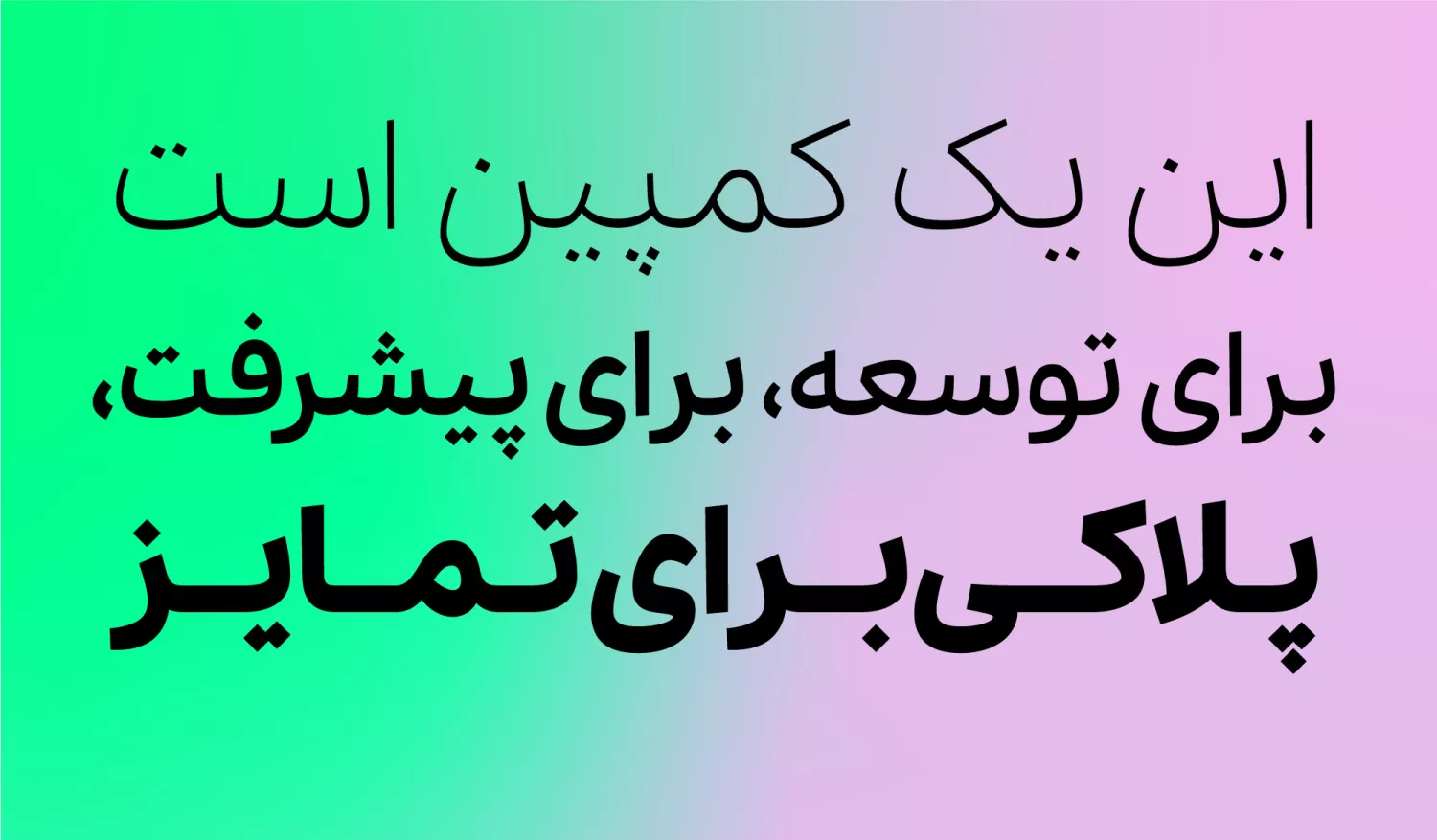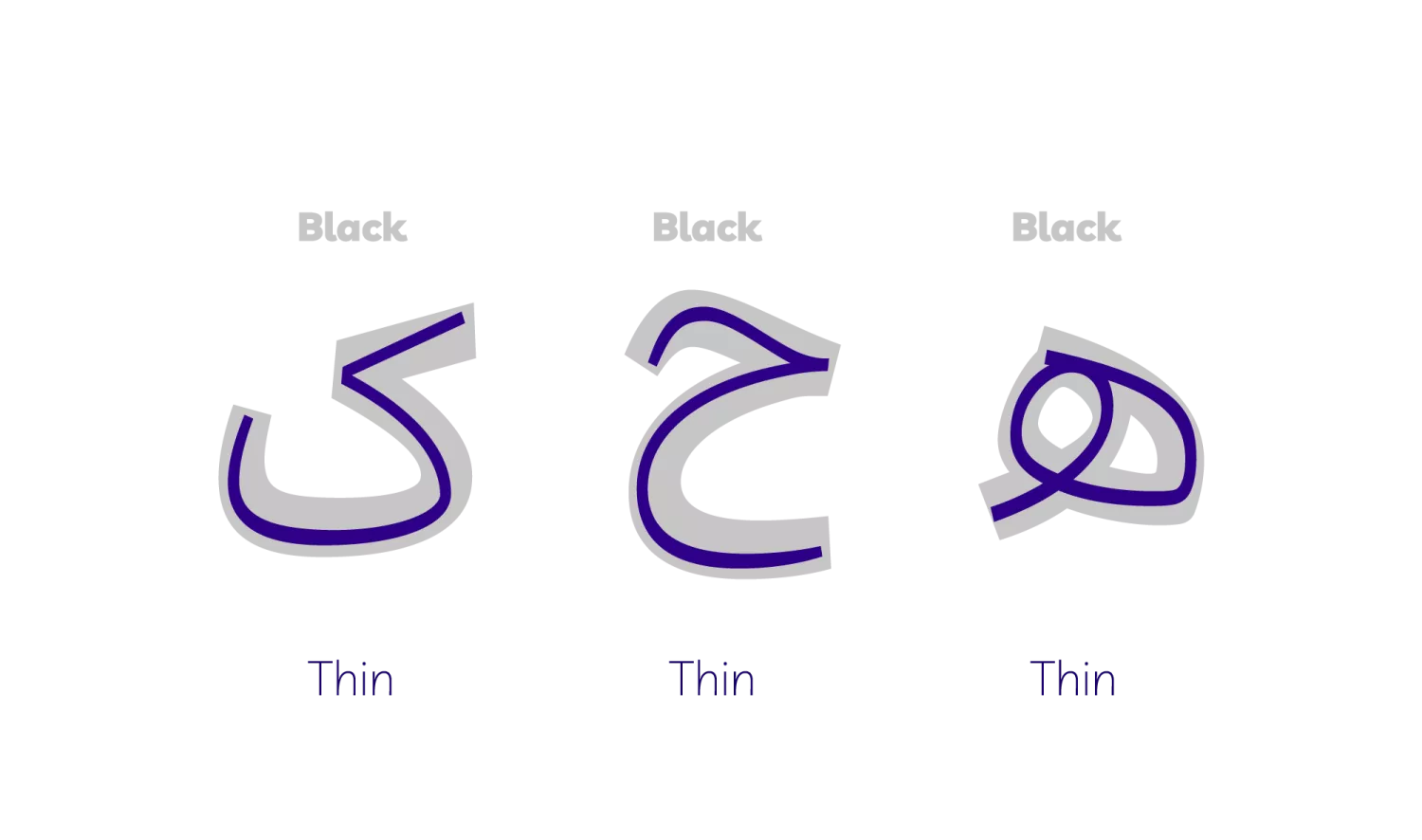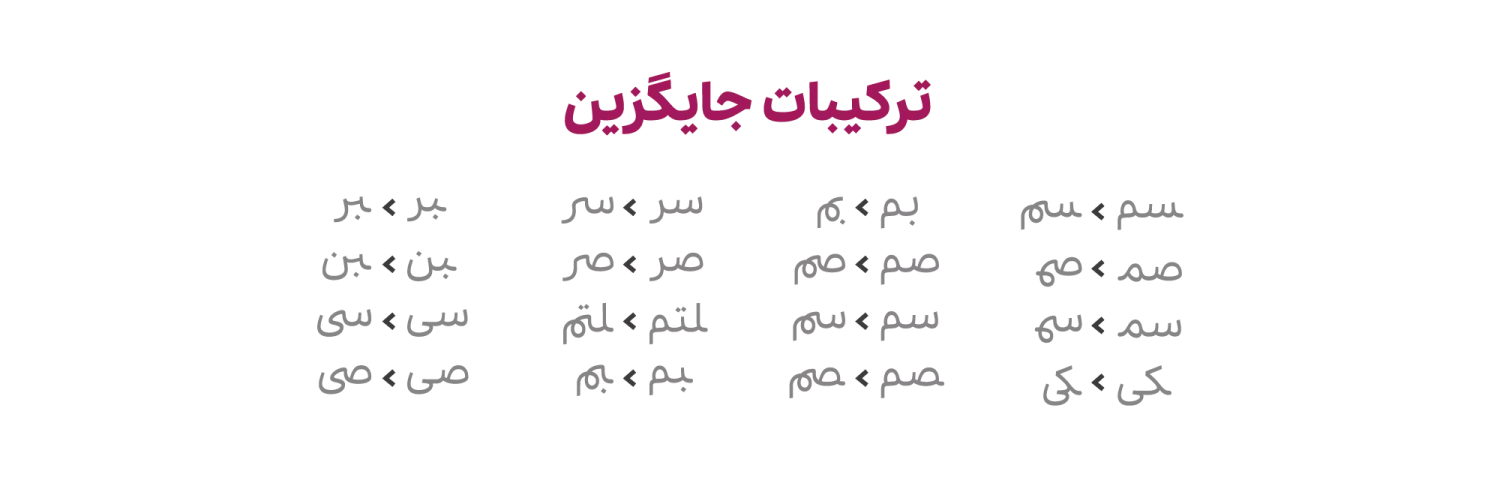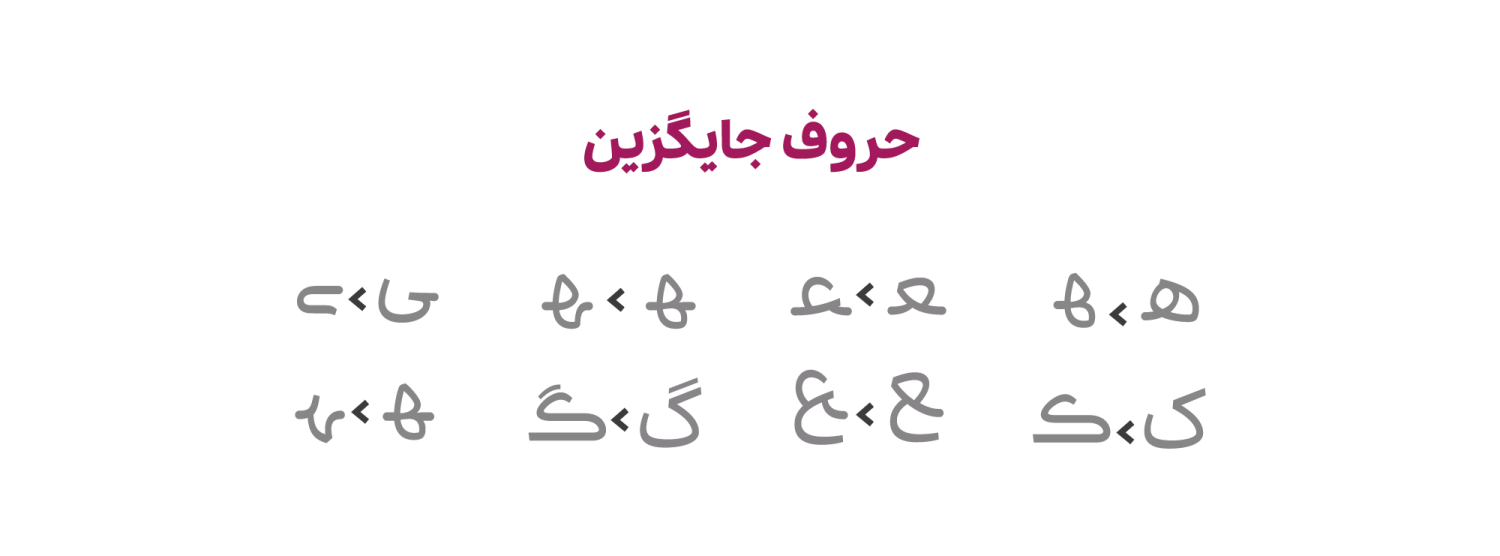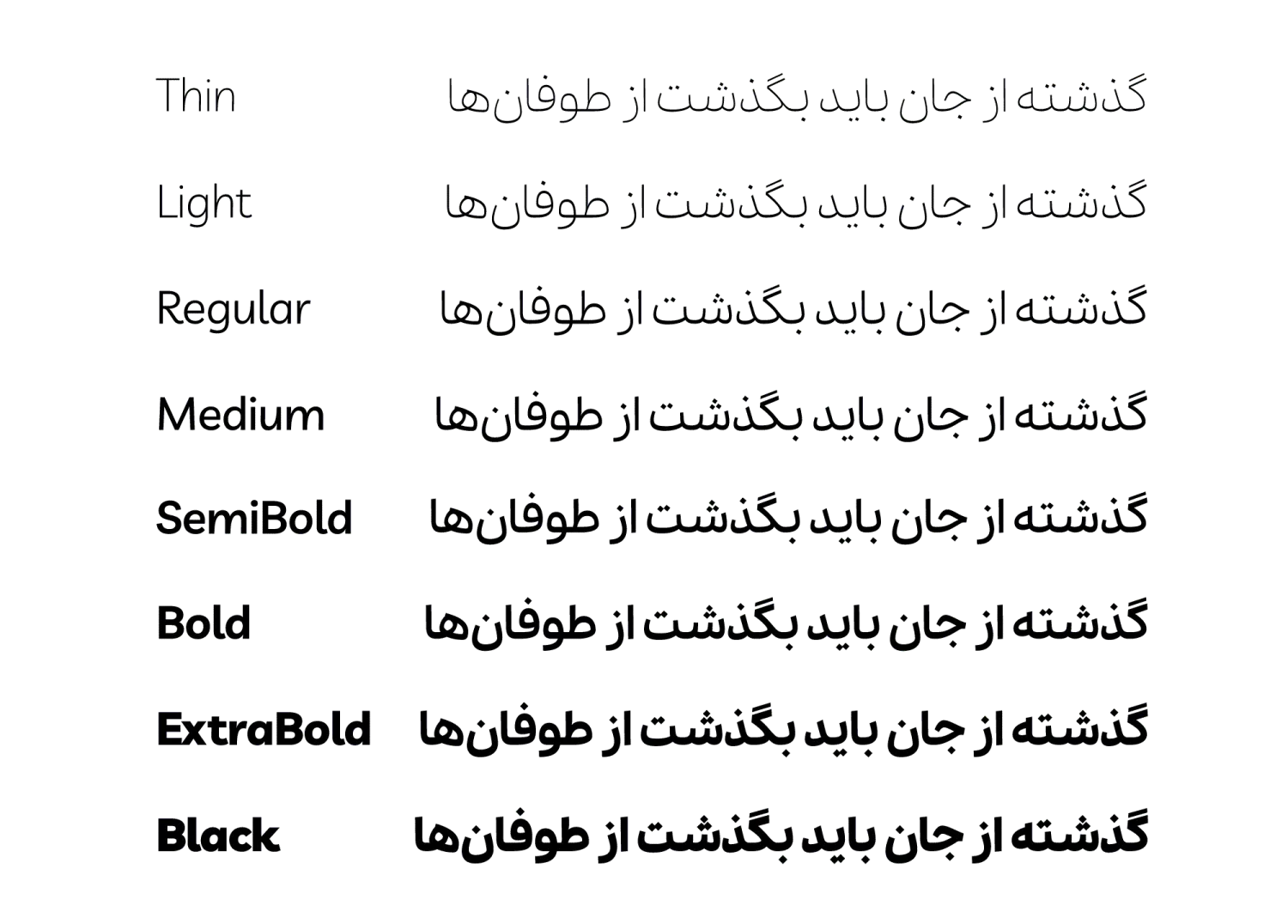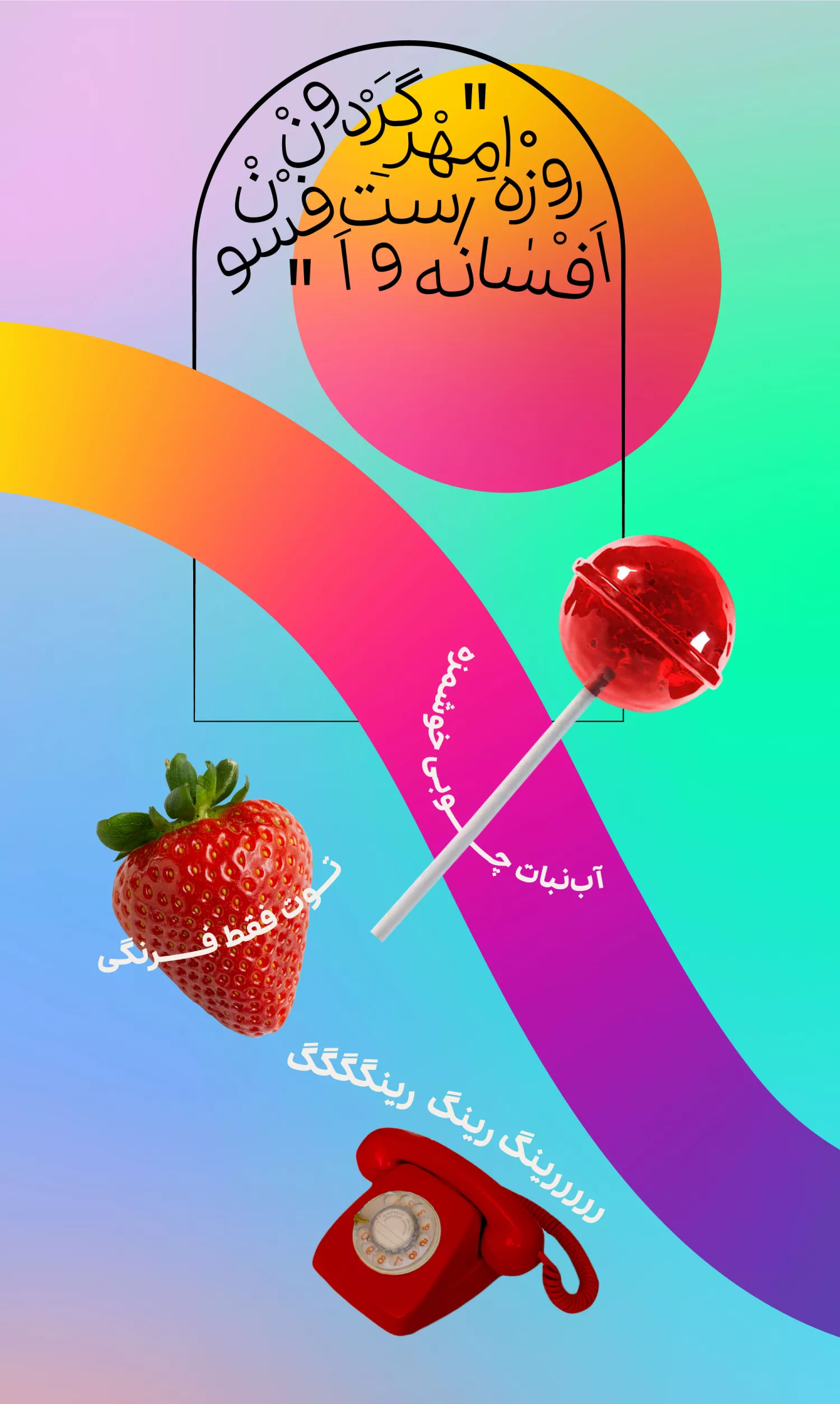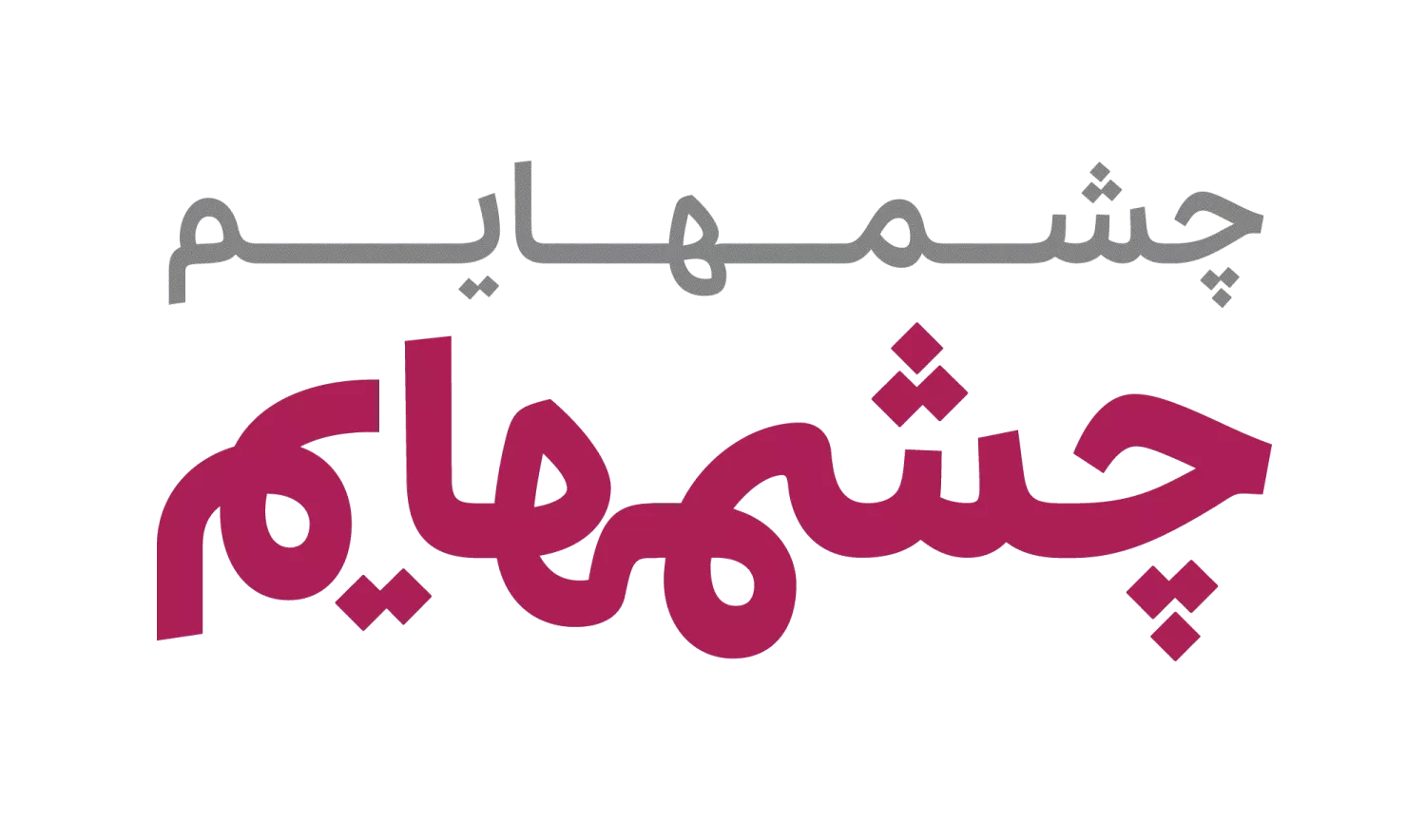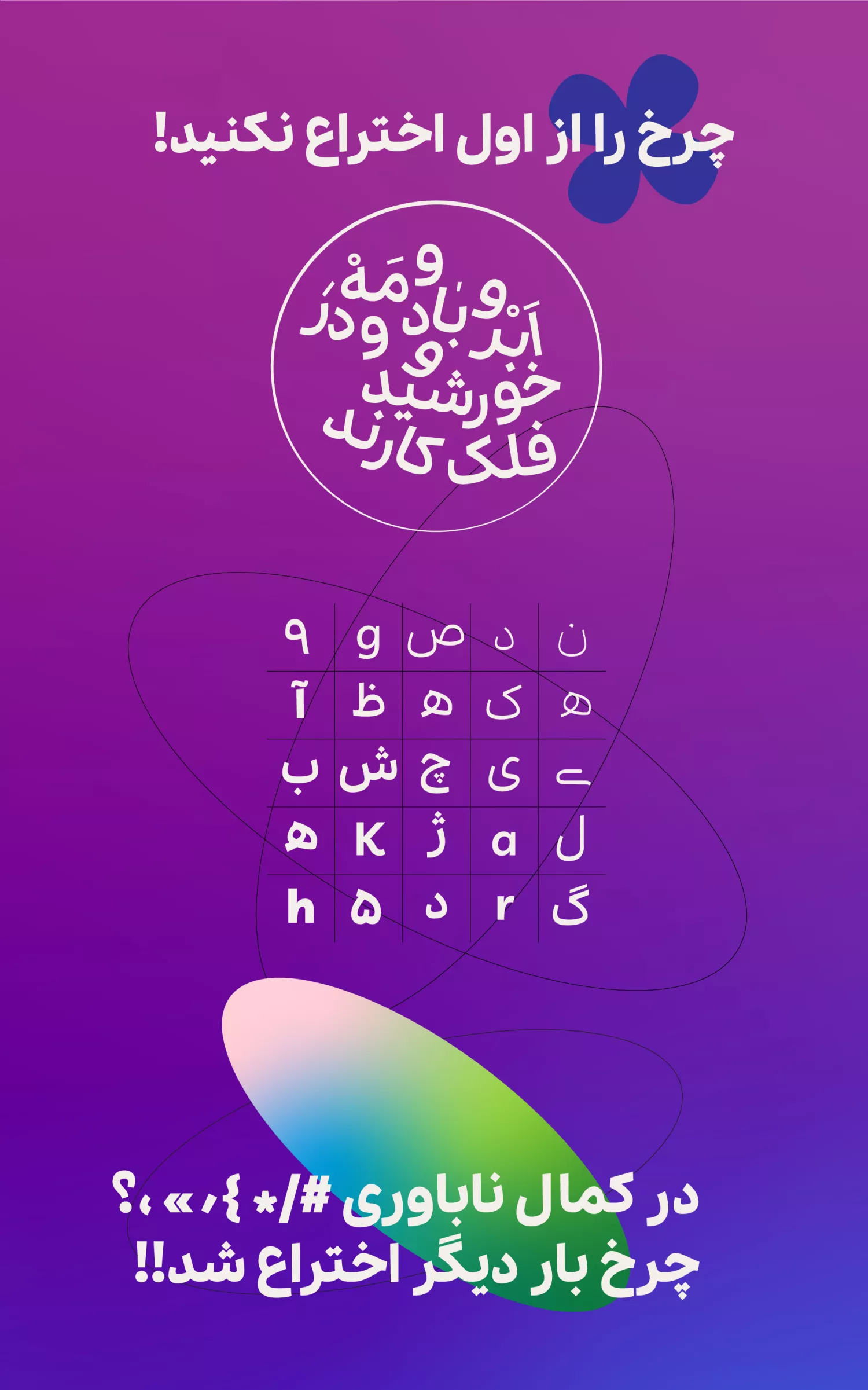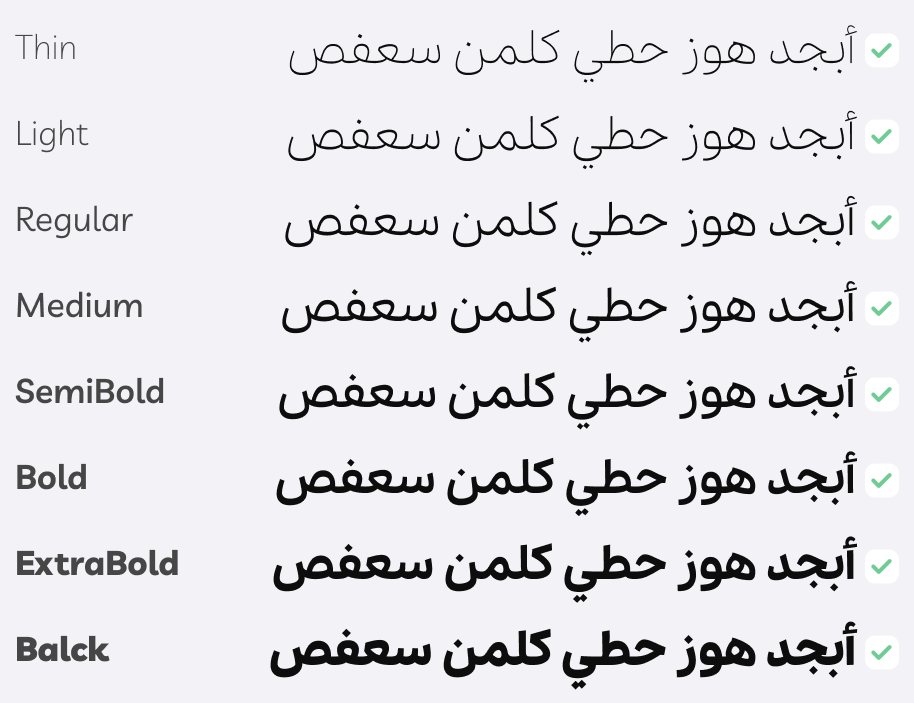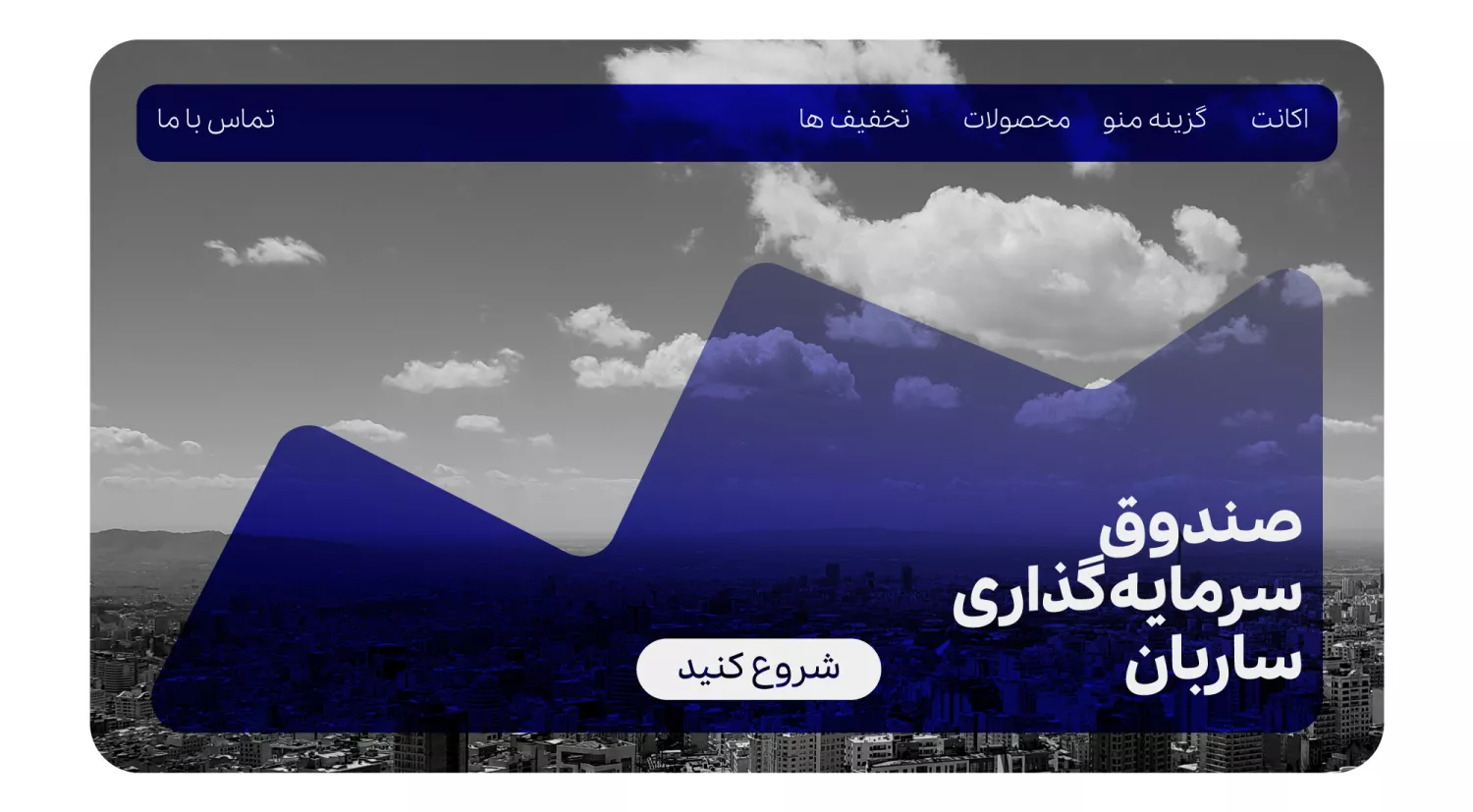
Pelak
Pelak typeface is a sans-serif typeface with minimal thickness variation, numerous curves, large apertures, and compressed line heights. These features make Pelak a modern, smooth, and fluid font with a humanistic feel while maintaining clear and legible characters at small sizes.
The goal of designing the Pelak font was to achieve an optimal gray balance, making it suitable for use in web applications. At the same time, significant attention was given to the individual letterforms to ensure both functionality and aesthetic appeal.
The weight distribution of the Pelak typeface is designed so that as the weight increases, the letterforms become more expressive. Consequently, the heavier weights of this font are particularly effective in graphic design and advertising, especially for short phrases such as slogans.
Weight Variety
The Plak font family is designed in eight weights: Thin, Light, Regular, Medium, SemiBold, Bold, ExtraBold, and Black. All weights include Latin characters, allowing text to be set in English, Persian, and Arabic. Plak font is built according to global standards and can be used in all text environments and software that support the Persian script.